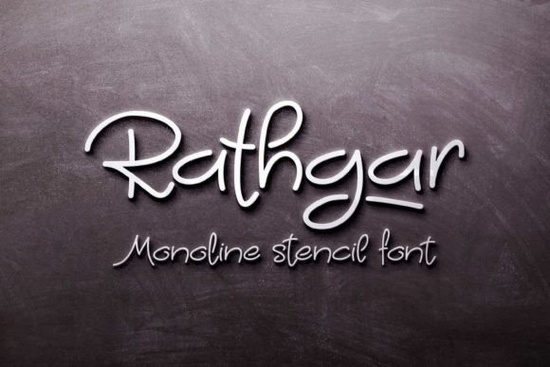
If you’ve been searching for a stencil font that feels hand-drawn but still clean and versatile, Rathgar Stencil Font might be exactly what your next project needs. It’s designed with open characters no closed loops which gives it that authentic stencil look while keeping things readable and flexible. Whether you’re making logos, packaging mockups, or crafting custom T-shirts, this font adds personality without sacrificing professionalism.
What makes Rathgar different from other stencil fonts?
Most stencil fonts either feel too rigid or overly distressed. Rathgar strikes a balance: it’s got the handmade charm of something sketched with care, but the structure to hold up in commercial use. Because none of the letters have enclosed shapes, you can easily cut them out of vinyl, wood, or paper without worrying about floating pieces falling off. That’s especially handy if you’re working with physical materials or designing for laser cutting.
You’ll also find it pairs well with more formal typefaces try layering it over a clean sans-serif for contrast, or combine it with a brush script like Bridger Signature for a casual-but-crafted vibe. If you’re exploring similar styles, check out Golfmind for relaxed handwritten energy, or Never Brat if you want something playful with edge.
Who should consider using Rathgar Stencil Font?
- Print-on-demand sellers Its open-letter design prints cleanly on fabric, mugs, and posters without ink bleed issues.
- Small business owners Great for branding products like candles, soap labels, or boutique packaging where you want a personal touch.
- Crafters and DIYers Easy to cut by hand or machine; ideal for stenciling wood signs, tote bags, or holiday ornaments.
- Graphic designers Adds texture and warmth to digital layouts without looking overdone.
One thing users often appreciate is how well it scales. At small sizes, it stays legible. At large display sizes, the character details really shine subtle ink traps and slight stroke variations give it depth without needing effects or filters.
How does it compare to seasonal or themed stencil fonts?
Unlike holiday-specific options like Malibu Holiday Duo, which leans into festive vibes, Rathgar is neutral enough for year-round use. You can dress it up or down depending on color, layout, or supporting graphics. That versatility makes it a smarter long-term investment, especially if you run a shop or handle multiple client projects.
It’s also worth noting that while many stencil fonts rely on grunge textures or heavy distressing to “feel” authentic, Rathgar achieves its look through thoughtful letterform design alone. That means you’re not locked into one aesthetic add your own texture overlays if you want grit, or keep it crisp for modern minimalism.
For reference, you can see how it stacks up visually against other popular script and stencil hybrids at Rathgar Stencil Font.
Any tips for getting the most out of this font?
- Use generous spacing. Since the letters are open, tight kerning can make words feel cluttered. Bump up tracking slightly for better readability.
- Try it in all caps. The uppercase set has strong presence perfect for headlines, badges, or product tags.
- Layer with solid fills. Place a solid version behind the stencil cutouts (if available) to create dimensional mockups without extra work.
- Stick to bold weights for physical crafts. Thin strokes may break when cutting or painting go thick for durability.
If you’re already using Creative Fabrica’s subscription, Rathgar is included in their growing library of script and display fonts. Even if you’re buying it standalone, the licensing covers personal and commercial use including POD platforms like Etsy, Redbubble, and Printful.
Designers who’ve used it report that clients often comment on how “custom” it looks even though it’s just a well-made font doing its job quietly. That’s the sweet spot: type that enhances your message without calling attention to itself.
Ready to try it?